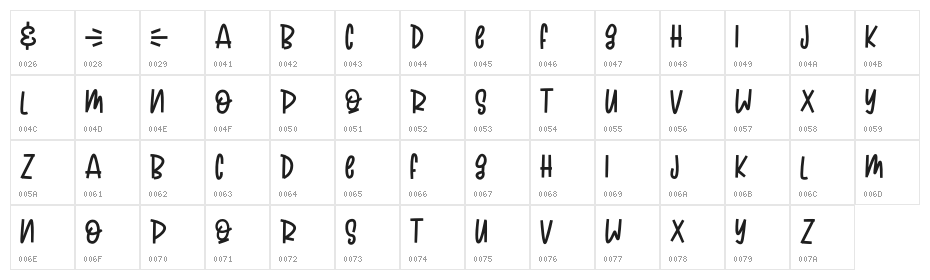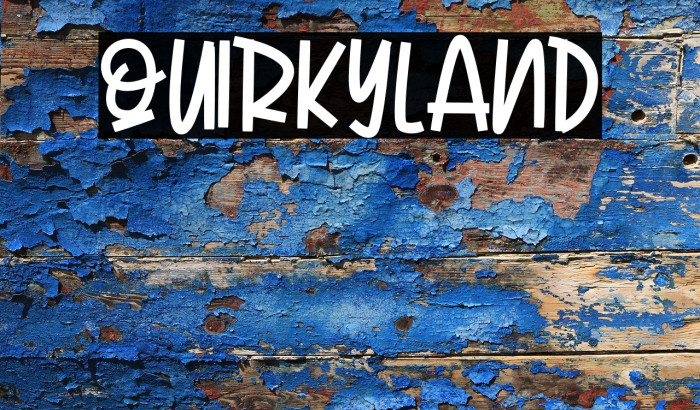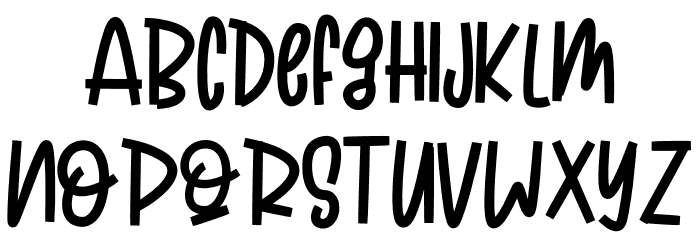
QUIRKYLAND Font
QUIRKYLAND Description
This playful and whimsical font features a unique, hand-drawn style with a bold and slightly irregular appearance. The characters are tall and narrow, with a quirky, uneven baseline that adds to its charm. The uppercase letters have a distinctive flair, with some characters featuring exaggerated loops and curves. The lowercase letters maintain a consistent style, complementing the uppercase set with their own playful twists. The numbers and special characters follow the same design principles, ensuring a cohesive look across all glyphs. This font's lively and informal nature makes it perfect for projects that require a touch of fun and creativity.